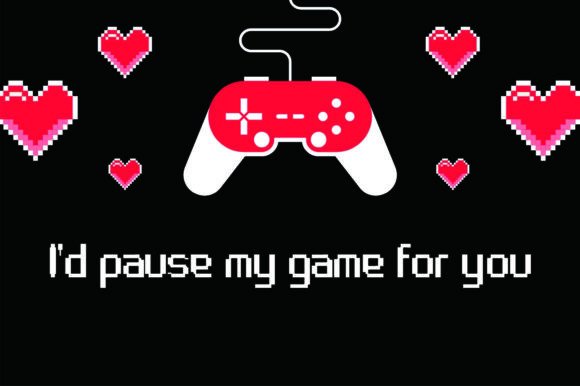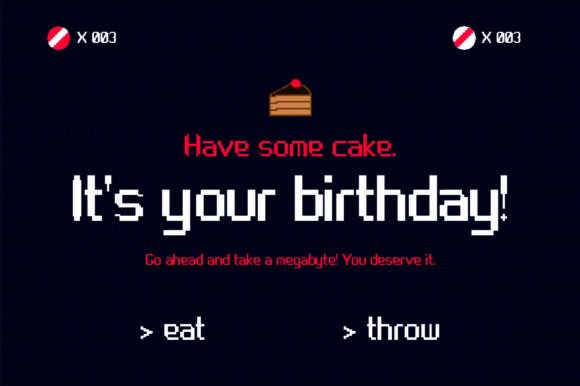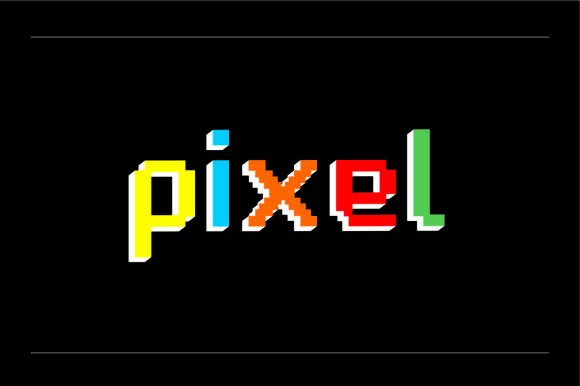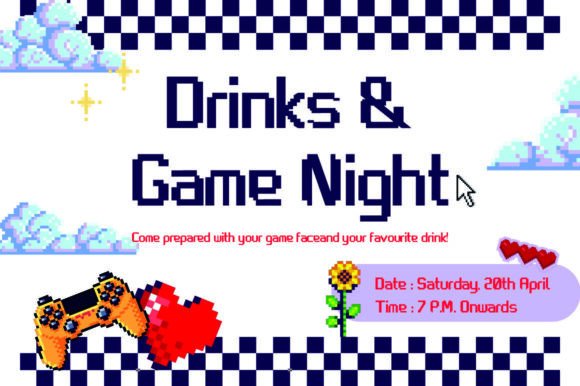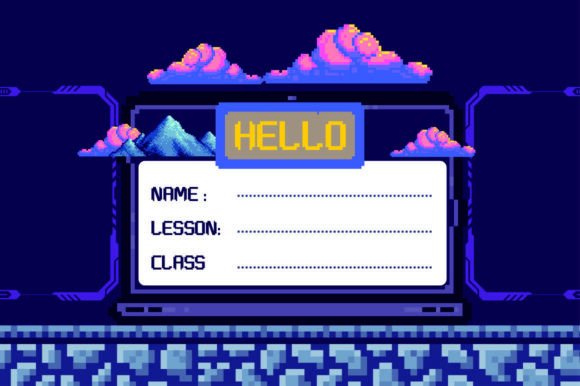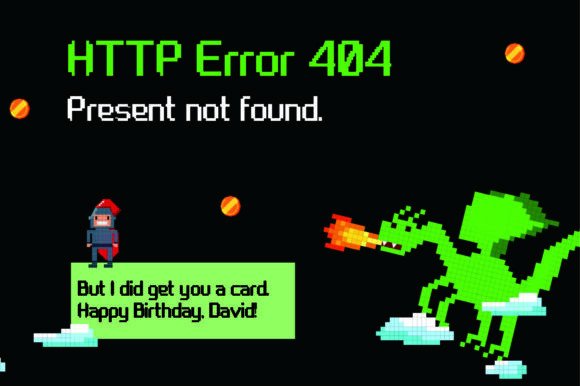
Unleash Your Creativity with Grid Hunter: The Ultimate Pixel Font
Are you a gamer, tech creative, or designer looking for a font that captures the essence of retro arcade visuals and modern digital grids? Look no further than Grid Hunter, a bold pixel-style typeface that’s perfect for creating stunning designs that evoke the spirit of classic 8-bit and 16-bit games.
The Inspiration Behind Grid Hunter
Grid Hunter is more than just a font – it’s a tribute to the retro arcade era and the modern digital grids that have become an integral part of our lives. The font’s creator was inspired by the sharp edges and precise square geometry of classic video games, which have been reimagined to create a clean, structured look that’s perfect for modern designs.
Key Features of Grid Hunter
- Bold and Pixelated: Grid Hunter features a bold, pixelated design that’s perfect for creating eye-catching titles, logos, and posters.
- Sharp Edges and Precise Geometry: The font’s sharp edges and precise square geometry give it a clean, structured look that’s reminiscent of classic video games.
- High Readability: Grid Hunter is designed to be highly readable, even at small font sizes, making it perfect for use in UI design, posters, and other applications where legibility is key.
- Powerful Visual Impact: The font’s bold, pixelated design makes it perfect for creating stunning visual effects that grab attention and leave a lasting impression.
Perfect for Gamers, Tech Creatives, and Futuristic Branding
Grid Hunter is the perfect font for gamers, tech creatives, and futuristic branding projects. Its rigid pixel construction evokes the feeling of digital battles, cyber worlds, and high-score screens, making it perfect for:
- Game Titles: Use Grid Hunter to create bold, eye-catching titles for your game that evoke the spirit of classic 8-bit and 16-bit games.
- Esports Logos: Create stunning logos for your esports team or brand that convey strength, power, and a competitive edge.
- UI Design: Use Grid Hunter to create intuitive, user-friendly interfaces that are perfect for games, apps, and other digital products.
- Posters and Sci-Fi Themed Projects: Grid Hunter is perfect for creating stunning posters, flyers, and other marketing materials for sci-fi themed projects.
Why Choose Grid Hunter?
Grid Hunter is not just a font – it’s a tool for unleashing your creativity and bringing your ideas to life. Here are just a few reasons why you should choose Grid Hunter for your next project:
- Unique and Versatile: Grid Hunter is a unique and versatile font that can be used in a wide range of applications, from game titles to esports logos and UI design.
- Easy to Read: The font’s high readability makes it perfect for use in applications where legibility is key.
- Customizable: Grid Hunter can be customized to fit your specific needs, making it perfect for use in a wide range of projects.
Grid Hunter is a bold, pixel-style typeface that’s perfect for creating stunning designs that evoke the spirit of classic 8-bit and 16-bit games. With its sharp edges, precise geometry, and high readability, Grid Hunter is the perfect font for gamers, tech creatives, and futuristic branding projects. So why wait? Unleash your creativity with Grid Hunter and bring your ideas to life in a way that’s sure to leave a lasting impression.
Get Ready to Conquer the Digital Grid
Grid Hunter is not just a font – it’s a weapon for conquering the digital grid. With its bold, pixelated design and high readability, Grid Hunter is the perfect tool for creating stunning designs that grab attention and leave a lasting impression. So what are you waiting for? Get ready to unleash your creativity and conquer the digital grid with Grid Hunter.